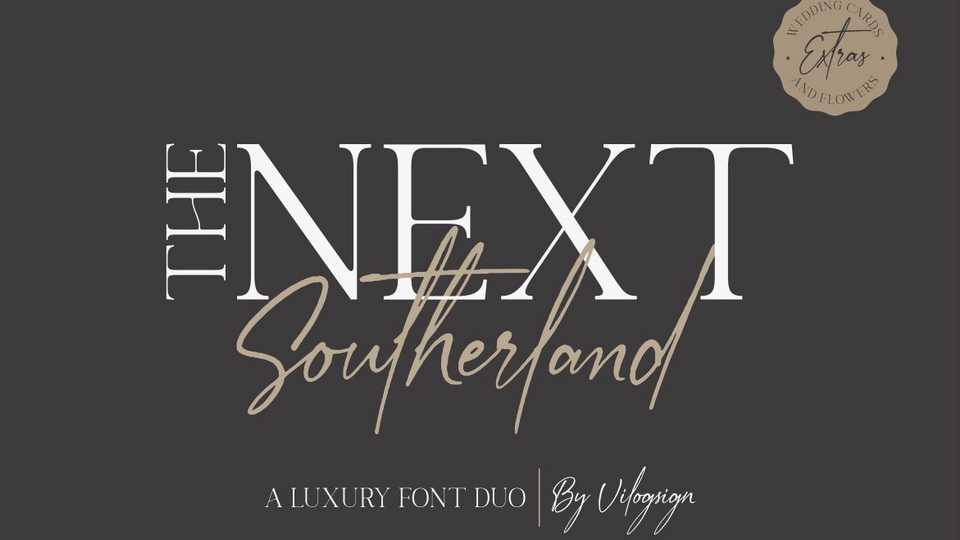
Next Southerland Font Duo › Fontesk – Download Grátis
Download Next Southerland typeface, a beautiful font duo with a modern, rustic, textured script font and elegant serif. Next Southerland is very suitable to make a branding, magazine, fashion, quotes, logo, packaging, and other.